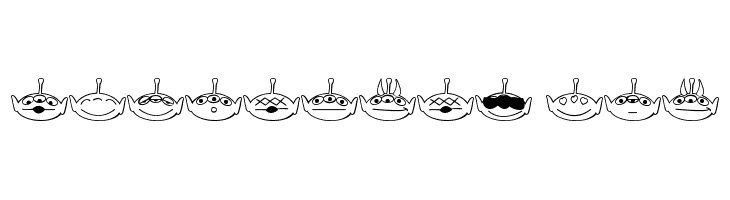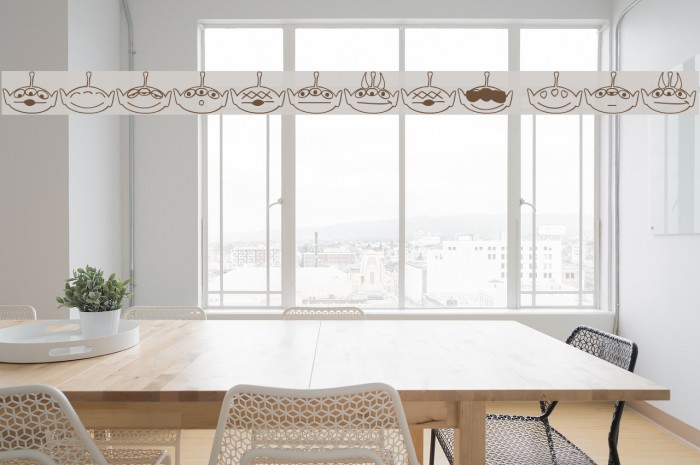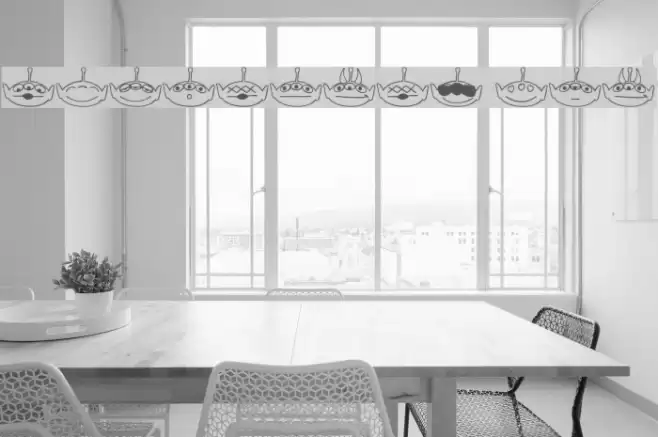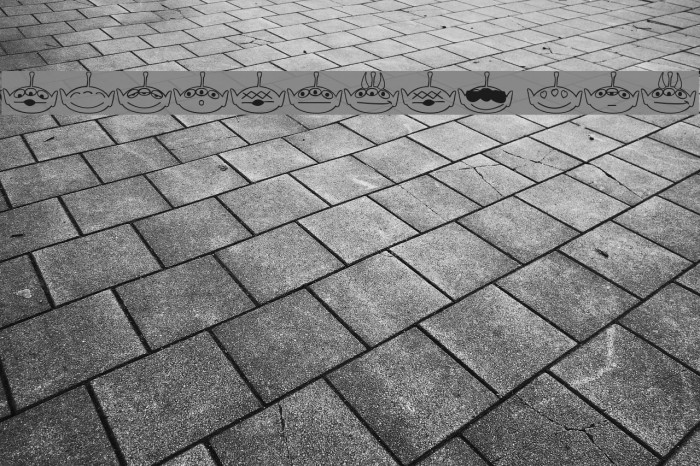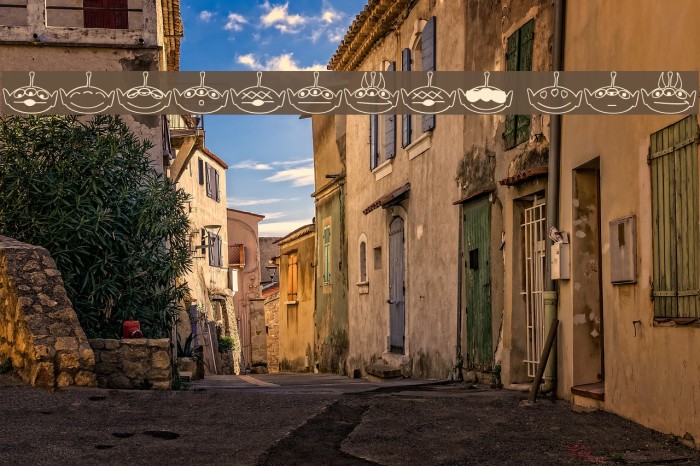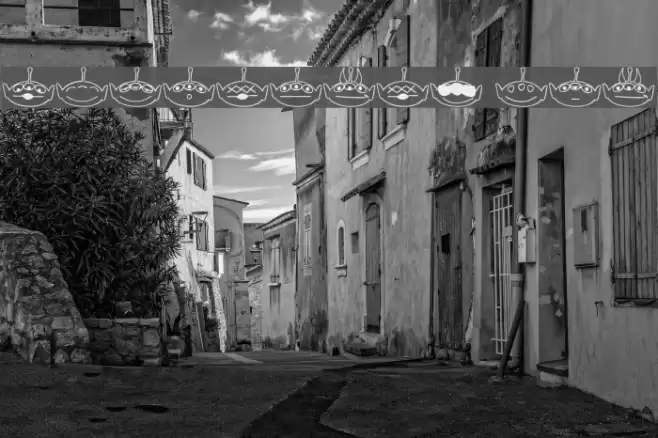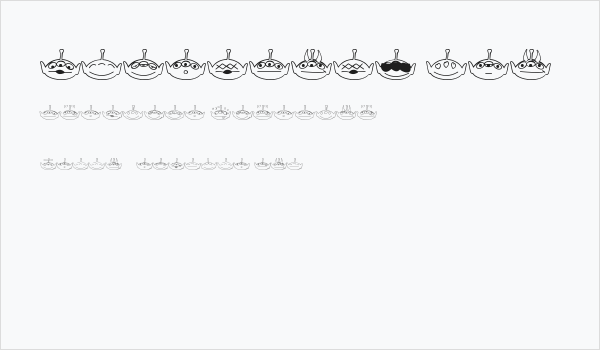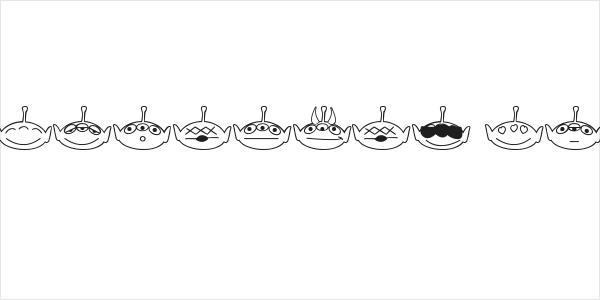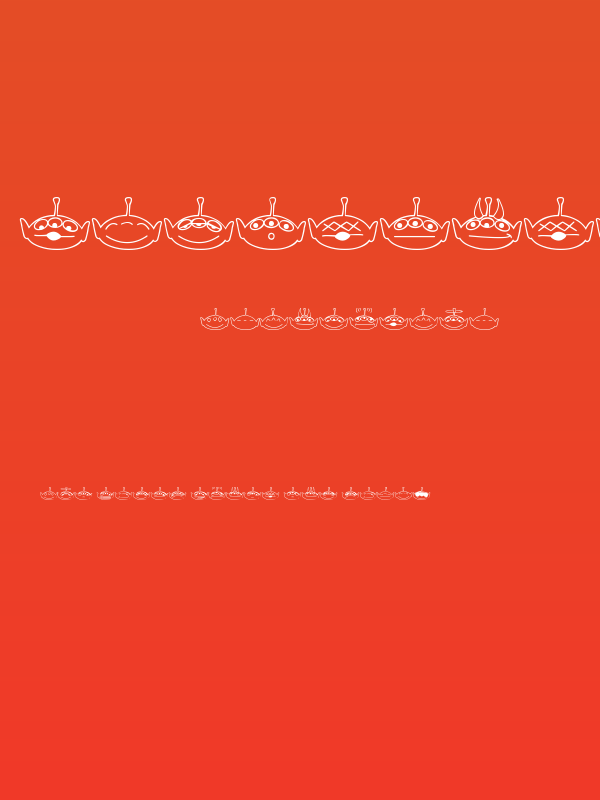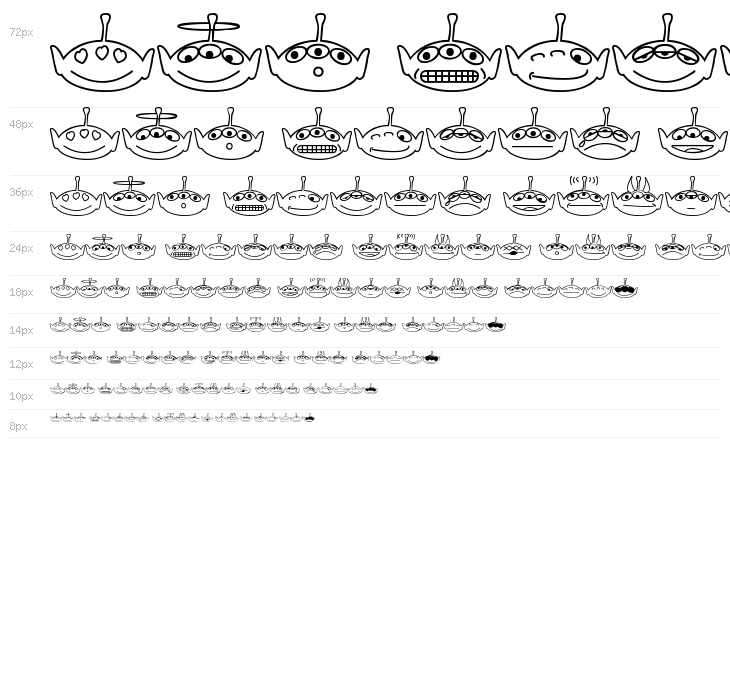
Aliencons two Font
Aliencons two Description
This font is a playful and whimsical collection of alien-themed icons, each character represented by a unique alien face with varying expressions and features. The design is highly decorative, with each icon featuring distinct elements such as antennas, eyes, and mouths that convey different emotions or characteristics. The style is consistent across the set, maintaining a uniform line weight and a cartoonish aesthetic that adds a fun and imaginative touch. The icons are well-suited for creative projects that require a quirky and extraterrestrial theme.
| Use Case | Logos, Illustrations, Themed graphics |
| Proposed Projects | Ideal for children's books, sci-fi themed graphics, educational materials, or novelty merchandise. |